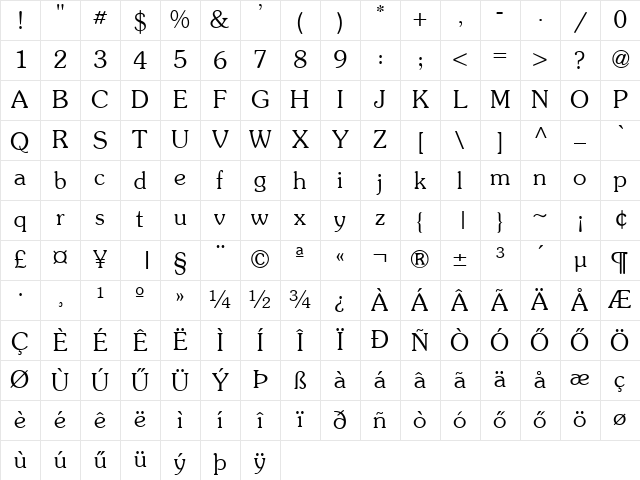
H_SOUTH3 Regular
Design Context for H_SOUTH3
H_SOUTH3 is a composed and adaptable typeface that performs quietly and consistently across a wide range of design contexts.